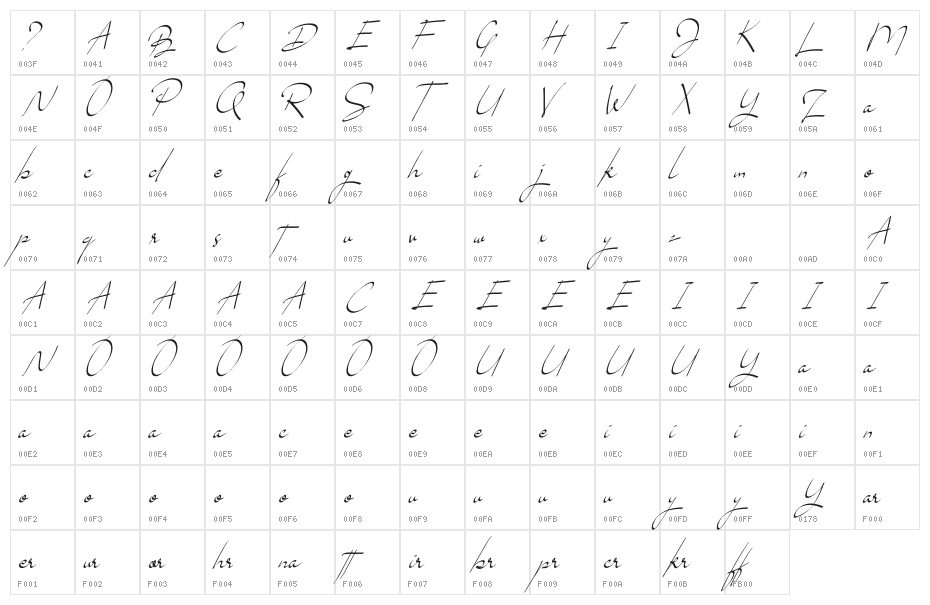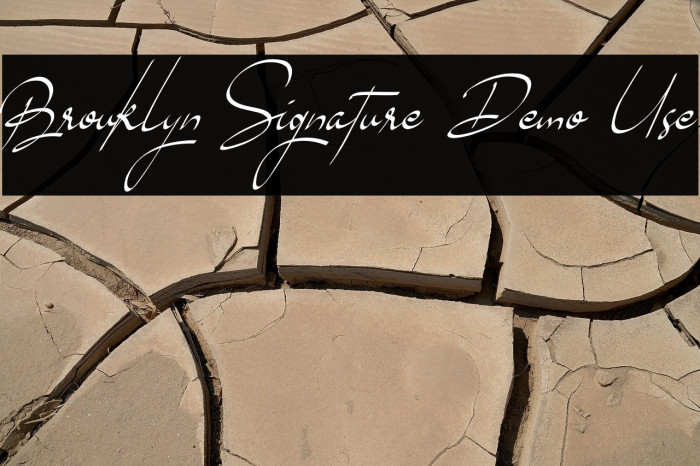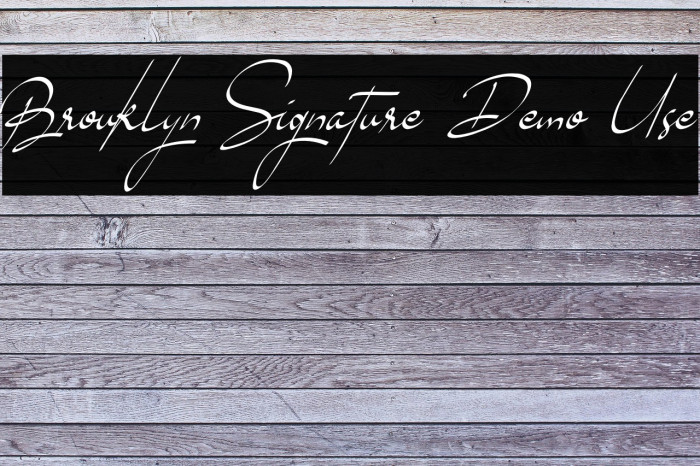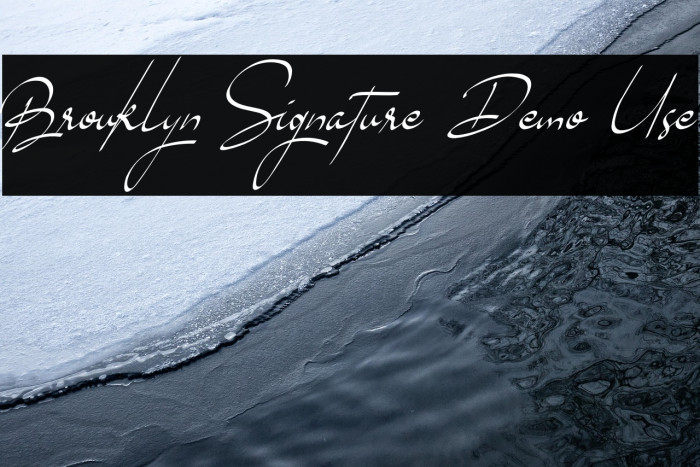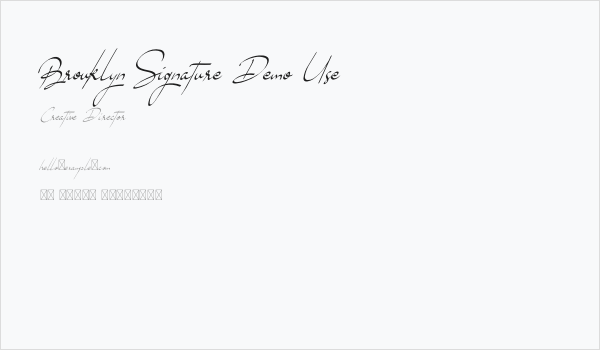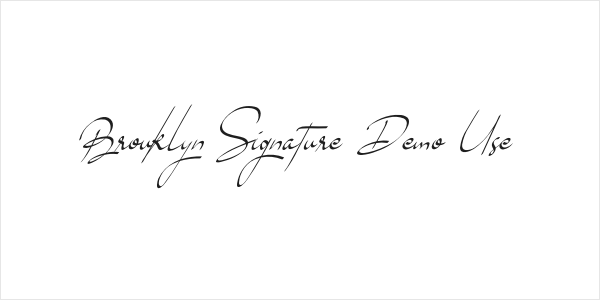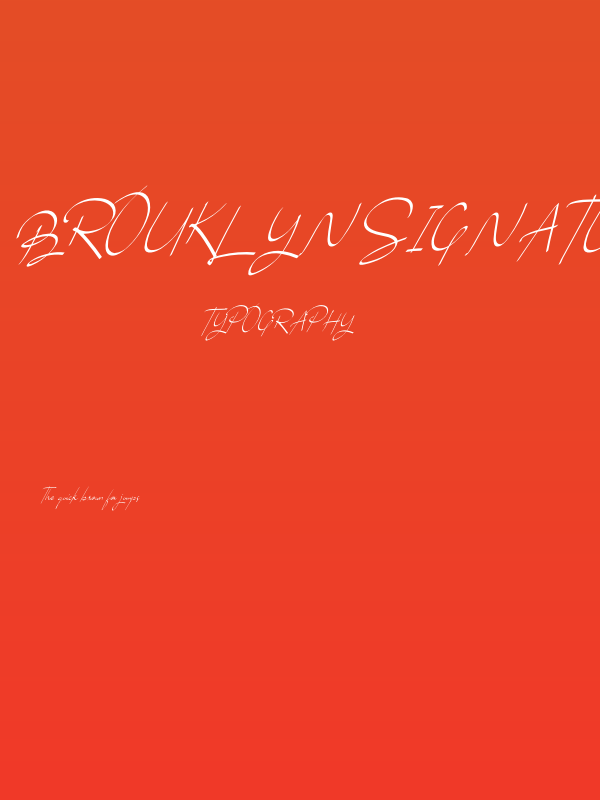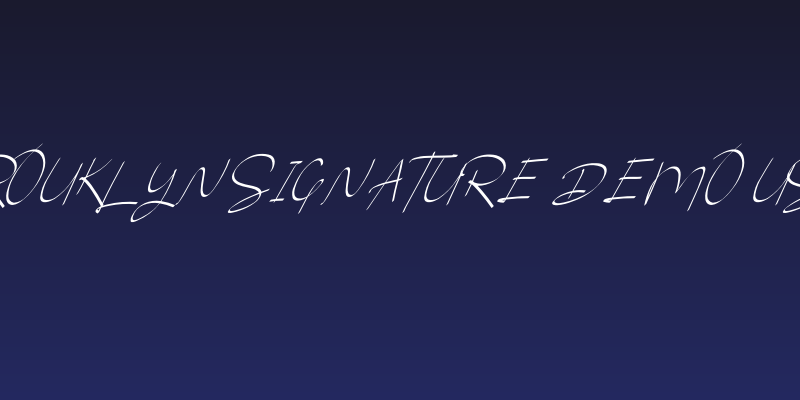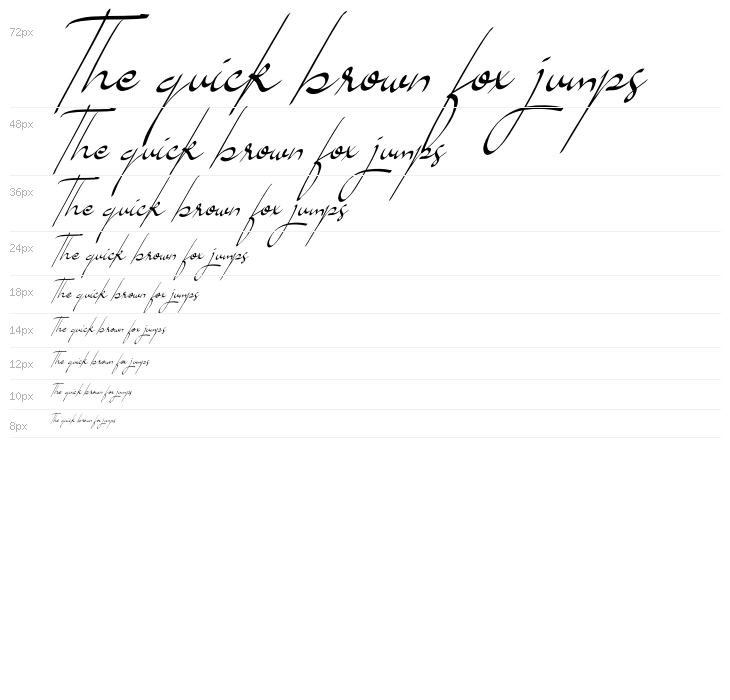
Brouklyn Signature Demo Use Font
Brouklyn Signature Demo Use Description
This font exudes elegance and sophistication with its fluid, cursive style. The letters are intricately designed, featuring elongated strokes and graceful curves that mimic the flow of a handwritten signature. The uppercase letters are slightly more structured, providing a balanced contrast to the more freeform lowercase letters. The overall appearance is both stylish and artistic, making it ideal for projects that require a personal touch. The font's unique character is further enhanced by its high contrast in stroke thickness, adding depth and visual interest.
| Overall Style | Elegant, Artistic |
| Proposed Projects | Ideal for wedding invitations, branding, personal stationery, and any project that requires a sophisticated, handwritten touch. |